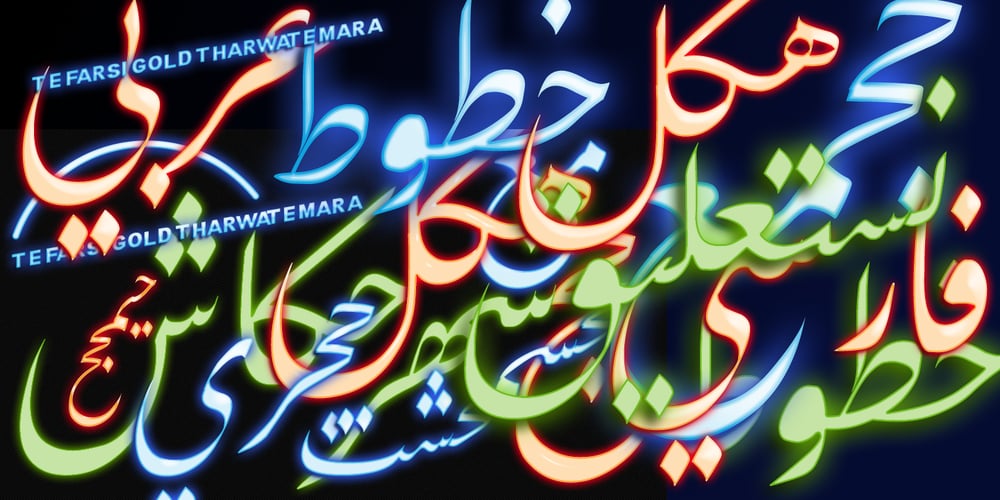
TE Nastaaliq
TE Nastaaliq font
TE Nastaaliq Font Family was designed by Tharwat Mohamed Emara and published by Tharwat Emara. TE Nastaaliq contains 1 styles and family package options. TE Nastaaliq Font It is one of the Persian calligraphy or ta’liq line that appeared in Persia in the seventh century AH (thirteenth century AD), as it was extracted from the lines of naskh, patch and thuluth. It is a beautiful font whose letters are distinguished by precision and extension. It is also characterized by its ease, clarity and lack of complexity. It does not tolerate diacritics, despite its difference with the line of the patch, as it is one of the best fonts in the world and the best without a competitor and admires many Arab calligraphers, and no cultural or literary exhibition is devoid of a painting written in Persian script. It is one of the most beautiful lines that has a special character that distinguishes it from others, as it is characterized by gracefulness in its letters, so it appears as if it descends in one direction, and its beauty is increased by the soft and rounded lines in it, because it is more flexible in drawing and more flexible, especially if it is drawn with precision, elegance and good distribution, and the calligrapher may baptize In his use of decoration to reach strength in expression by taking advantage of arches and circles, in addition to the grace of painting, the artist may link the letters of one word and the two words to reach the composition of a frame or curved and wrapped lines in which he shows his genius in imagination and creativity.